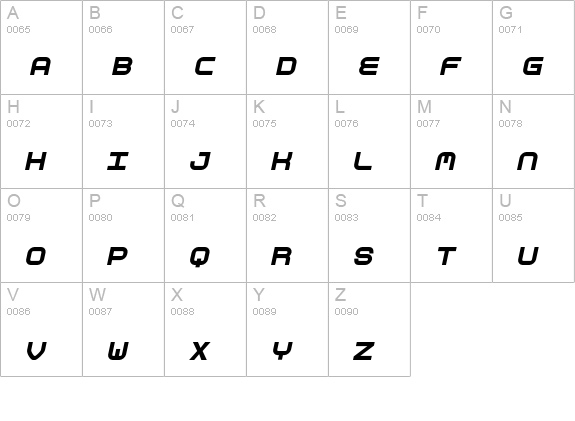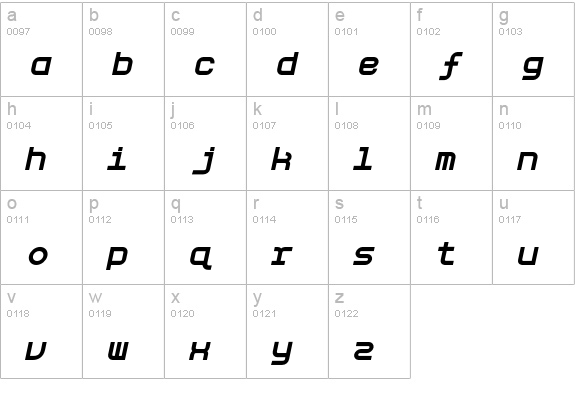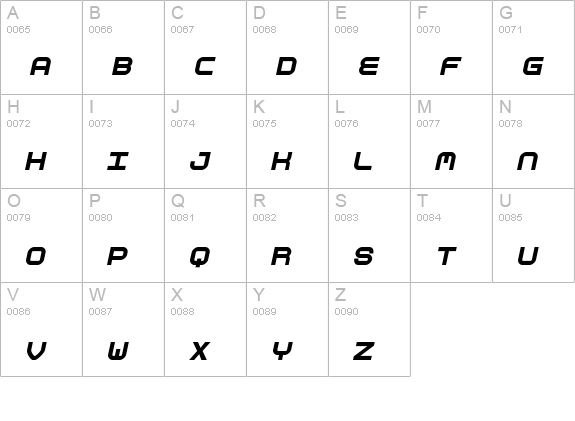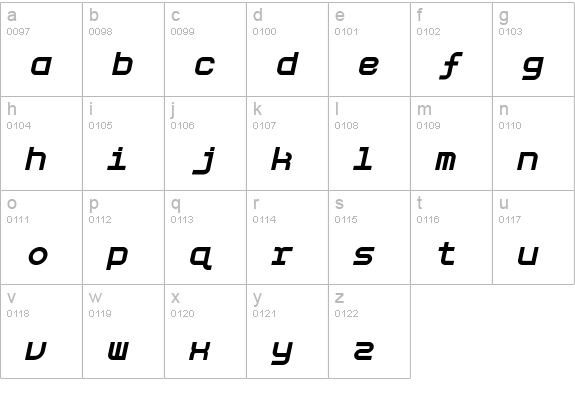
Aspirin-Refill-Collapsed font is a sleek and modern typeface that exudes sophistication and elegance. Its clean lines and sharp angles make it perfect for a wide range of design projects, from branding to editorial design. The condensed style of this font allows for efficient use of space without compromising on readability. What sets Aspirin-Refill-Collapsed font apart is its unique blend of versatility and style, making it a go-to choice for designers looking to make a bold statement with their typography. Whether you're creating a sleek logo or designing a striking poster, this font is sure to elevate your work to the next level. Best of all, Aspirin-Refill-Collapsed font is freely available to download at FontsMarket.com. So go ahead and add this stunning typeface to your collection today and watch your designs come to life with a touch of elegance and flair.